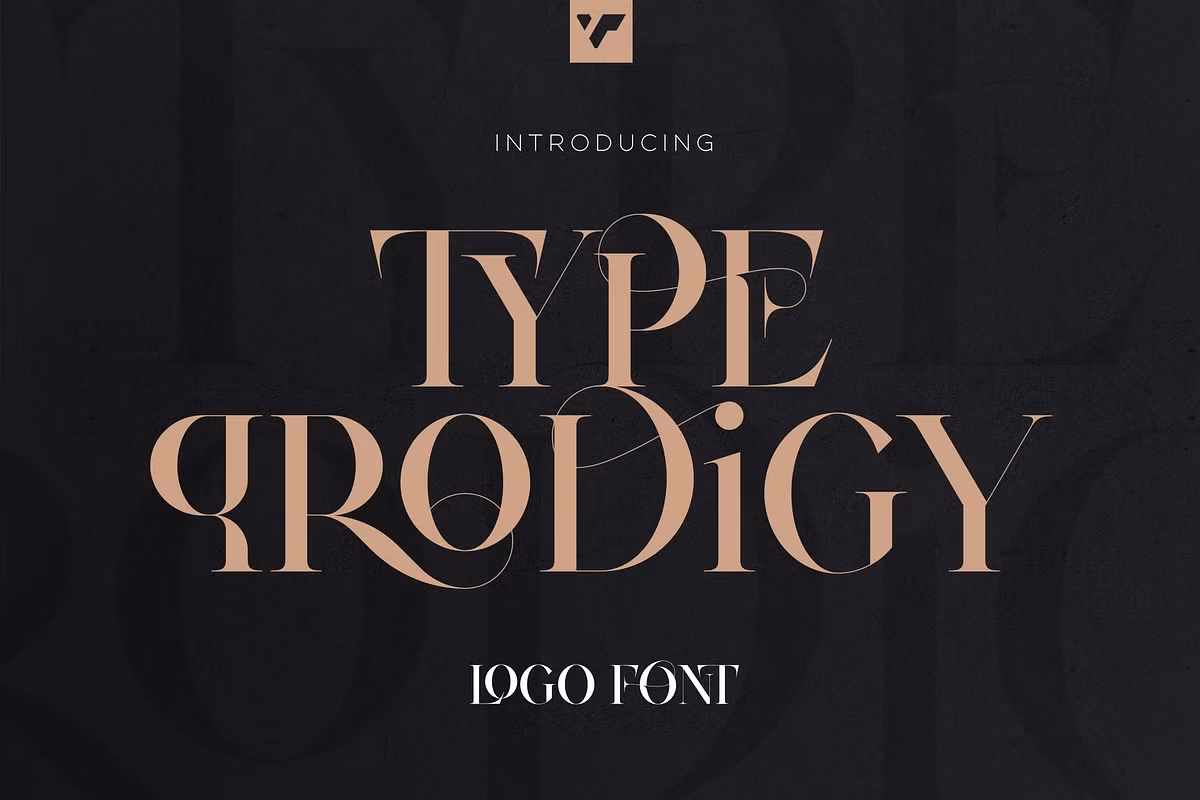
Type Prodigy – Serif Logo Font Free Download is a refined and confident typeface created specifically for standout logo design and brand identity. Please note: you must purchase this font for commercial use, but you can test it through a free download. With high-contrast strokes, elegant curves, and carefully designed letterforms, Type Prodigy is perfect for fashion labels, boutique branding, editorial titles, and upscale packaging.
This serif font blends timeless sophistication with a bold, modern edge—making your logos feel both classic and fresh. Whether you're crafting a minimalist monogram or a luxury wordmark, Type Prodigy – Serif Logo Font Free Download offers the perfect balance of form and flair. Fully compatible with Adobe Illustrator, Photoshop, Canva, and more. Download it today for personal use and elevate your design work with the clean confidence of Type Prodigy.